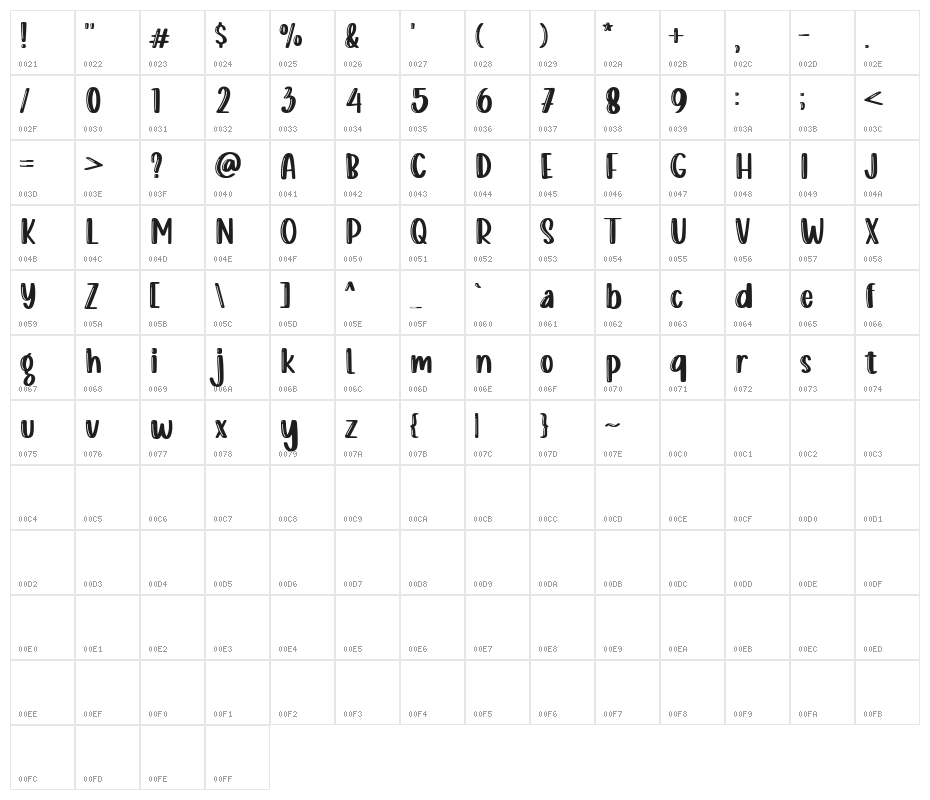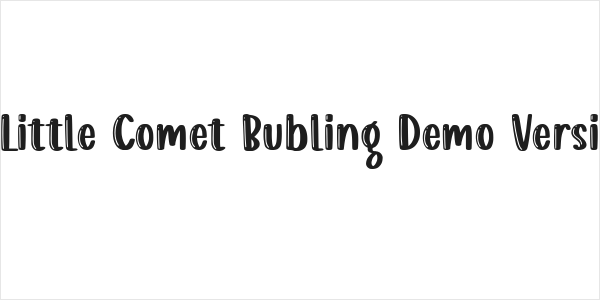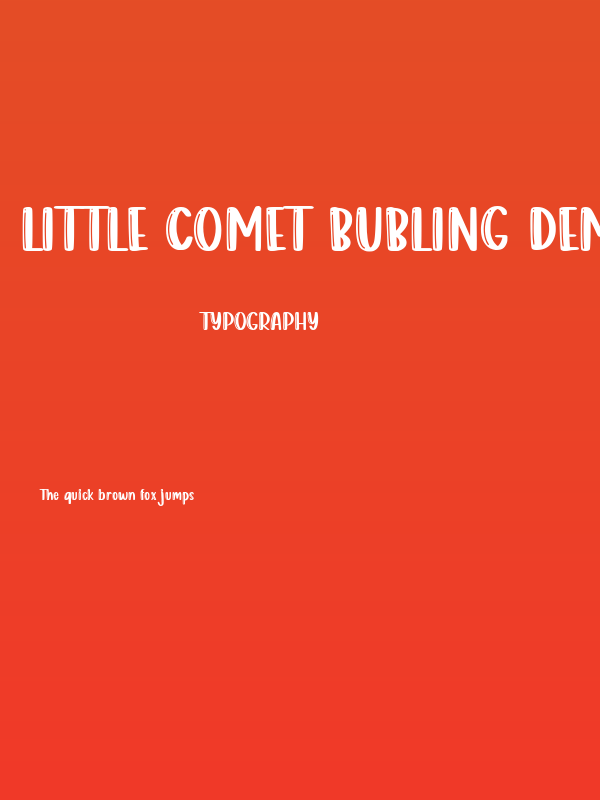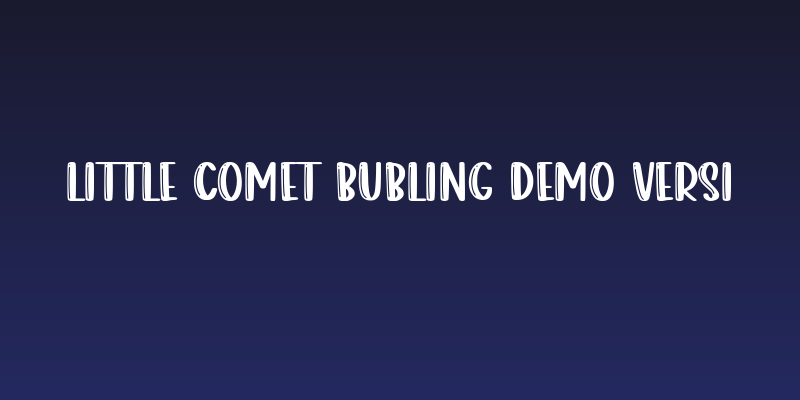
Little Comet Bubling Demo Versi Font
Little Comet Bubling Demo Versi Description
This playful and bold font features a handwritten style with a bubbly and energetic appearance. The uppercase and lowercase letters are characterized by their rounded edges and varying stroke widths, giving them a lively and informal feel. The numbers and special characters maintain this whimsical style, making the font suitable for creative and fun projects. Its unique personality is conveyed through its thick strokes and slightly irregular shapes, which add a touch of charm and approachability. The font's design is perfect for capturing attention and conveying a sense of joy and creativity.